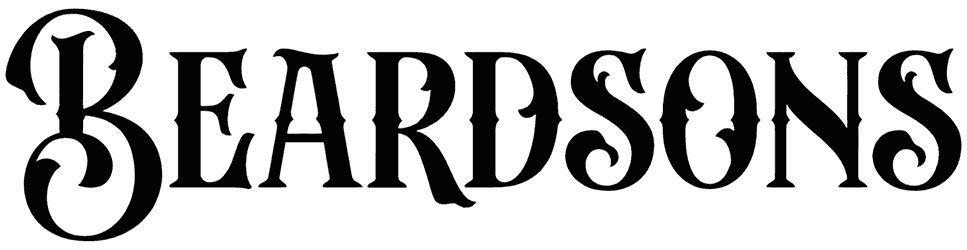
Beardsons Font
With its grandeur and appearance, Beardsons has been able to give strength and stability to any new brand. This retro font has a classic look and added embellishments that provide a strange link to traditional whiskey fonts.
To make your writing stand out on the restaurant menu, shop sign, or business cards, you can combine both styles of capital letters in this fancy font and implement all your mental ideas without the need for small letters and some numbers.